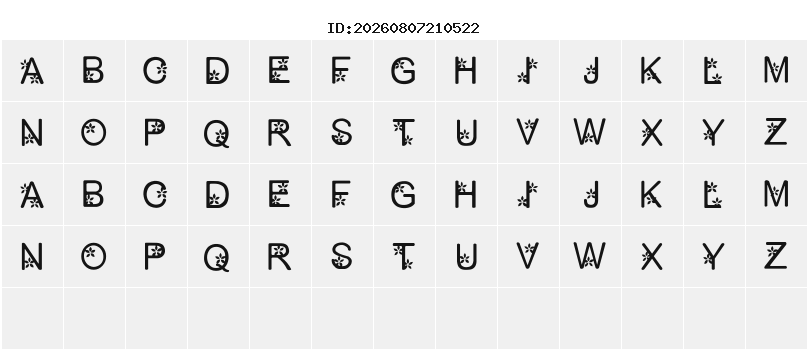
• Font Name: petty1.0
• Font ID: petty1.0
• Full Font Name: petty1.0
• PostScript Name: petty1.0
About petty1.0.ttf
petty1.0.ttf is a modern, elegant sans-serif font designed for ultimate readability and visual harmony. Perfect for branding, headlines, web design, and print materials.